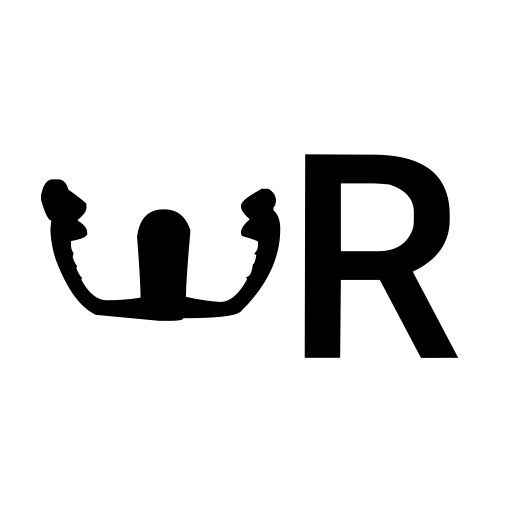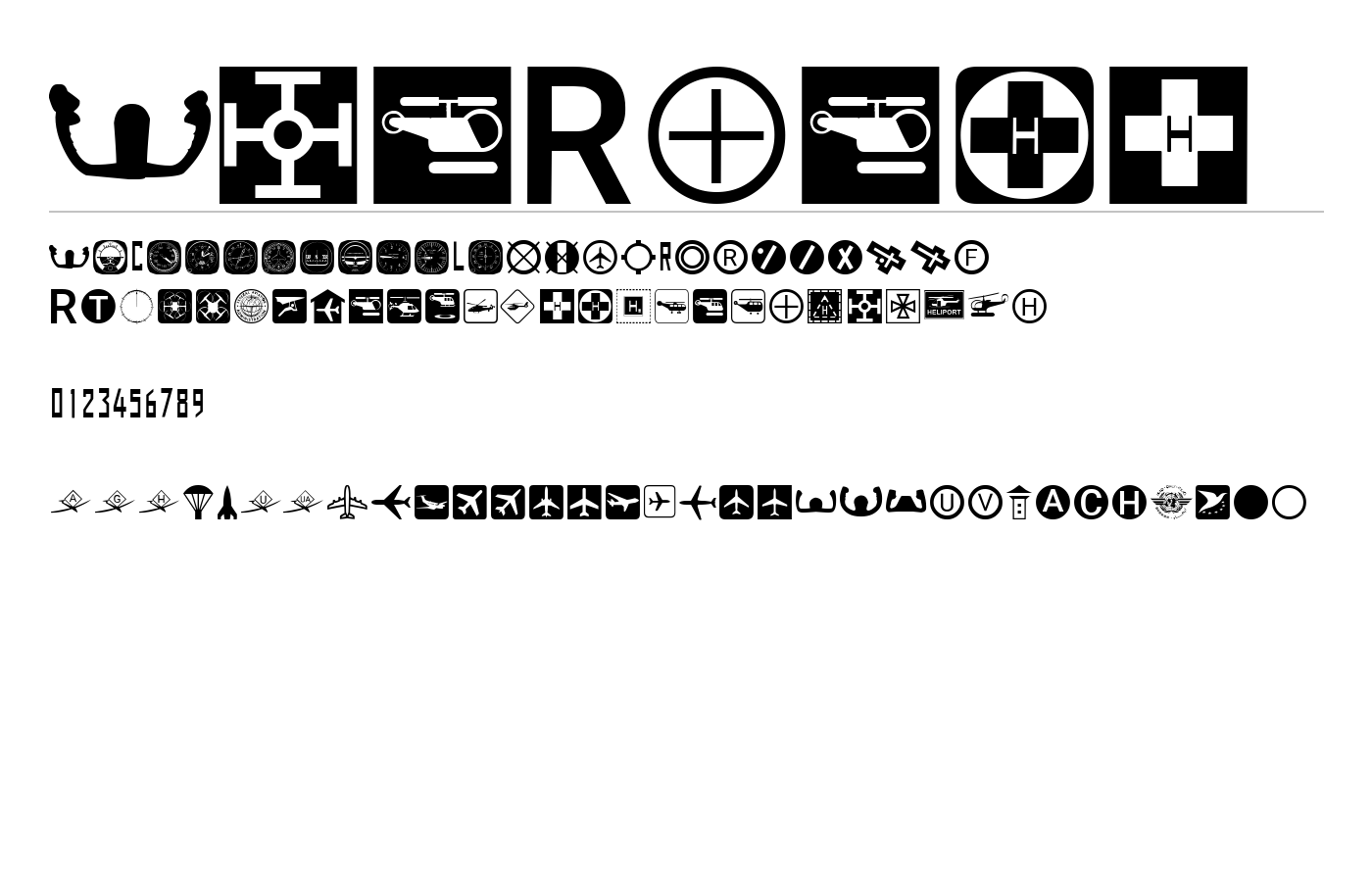
Aviation Font is a bold, narrow sans serif typeface with a strong industrial and technical feel, designed to evoke the precision and functionality of aeronautical instruments and symbols. Its clean, condensed letterforms paired with a distinctive set of aviation-related icons make it perfect for projects needing a modern, authoritative look, especially in branding, signage, and design contexts related to aviation and transportation. This font excels in creating a sense of professionalism and clarity, ideal for logos, posters, and technical displays where readability and a sleek, mechanical personality are essential.
Aviation Font